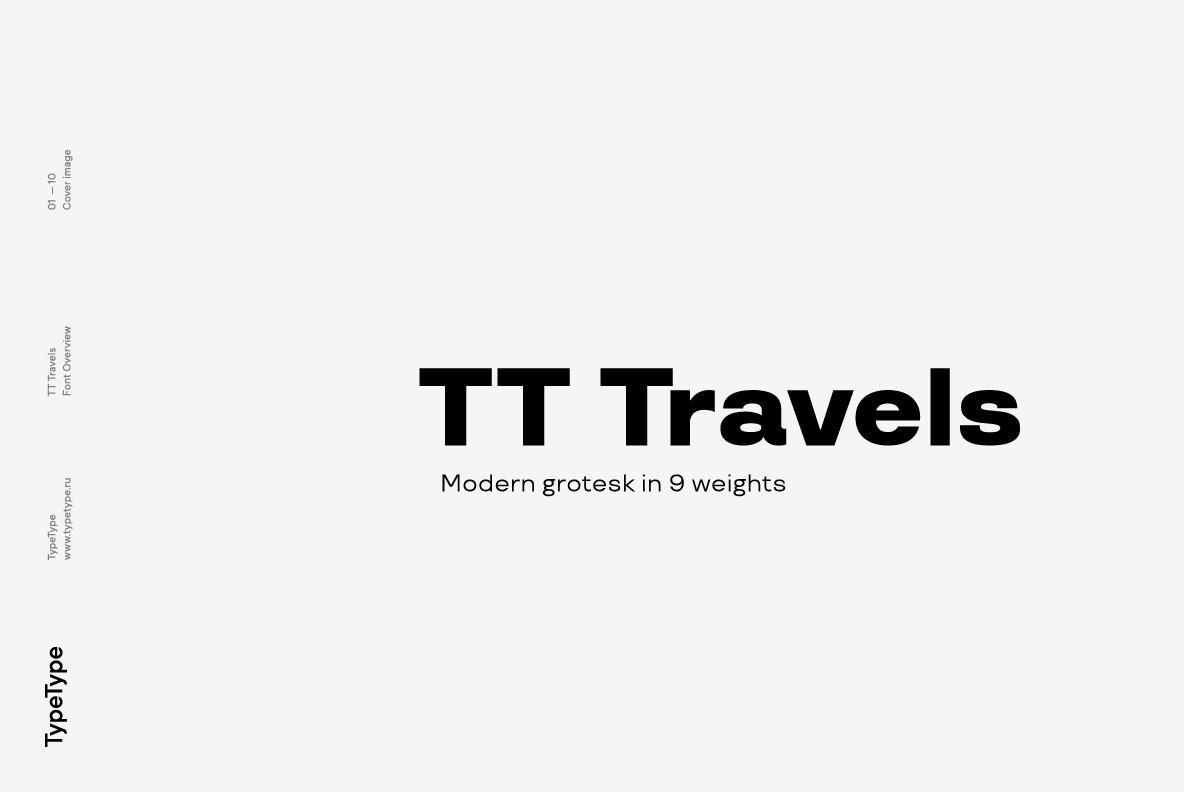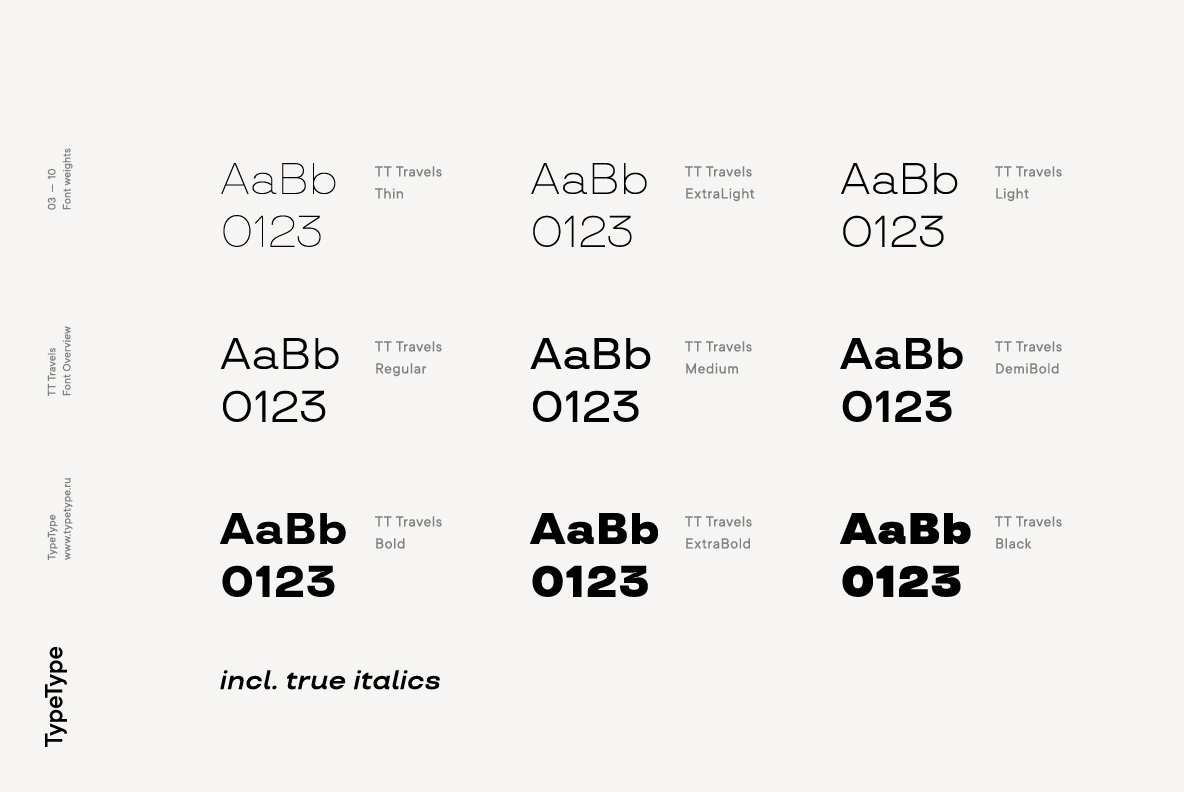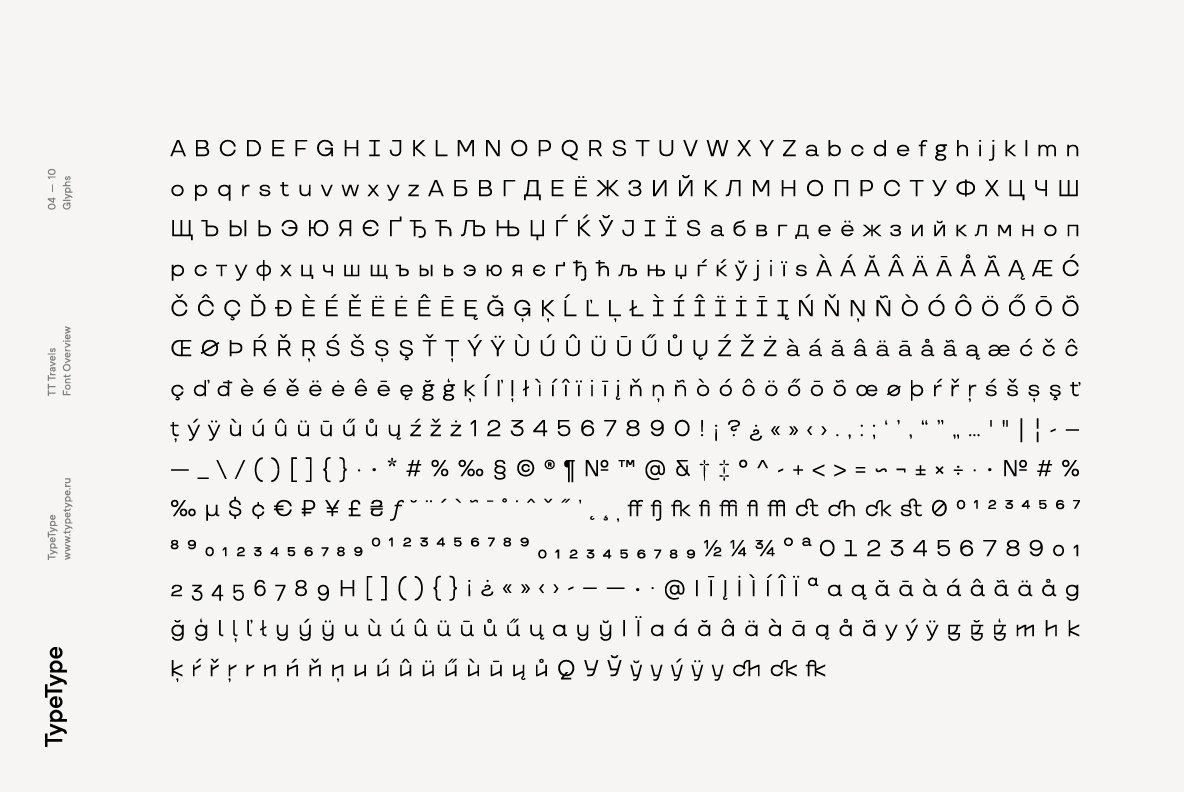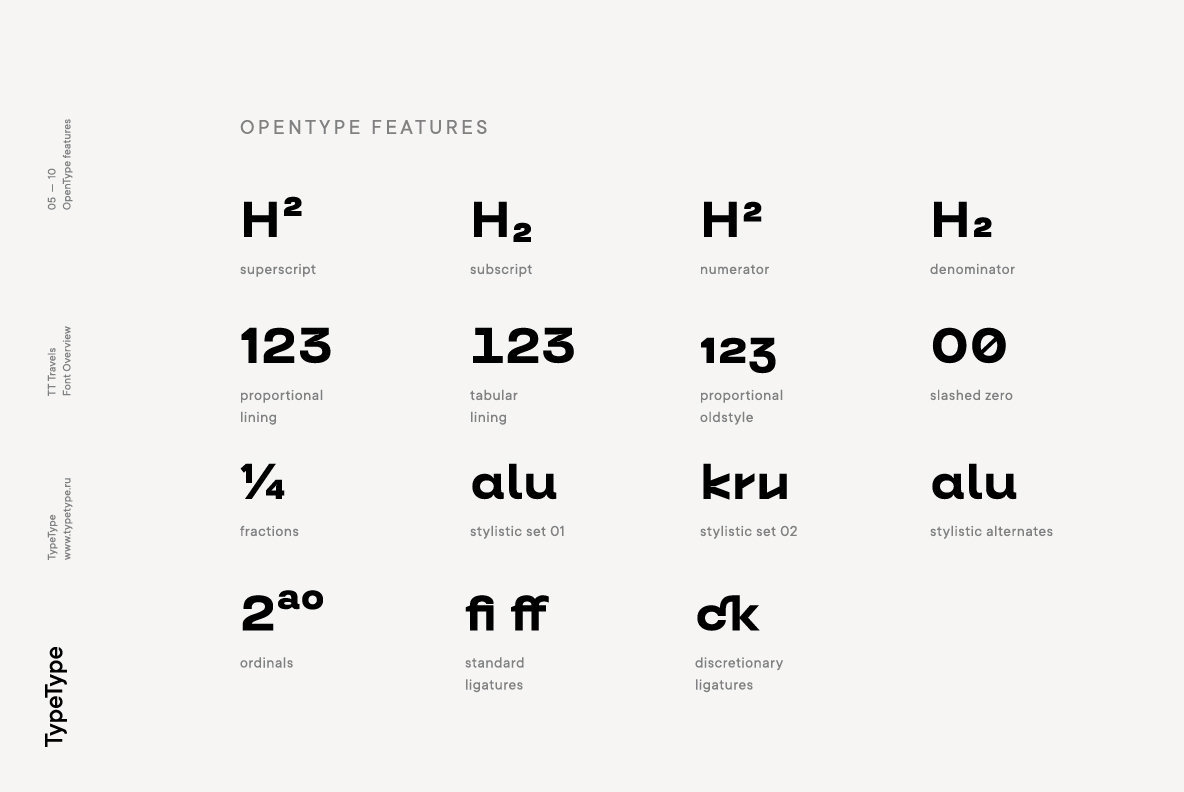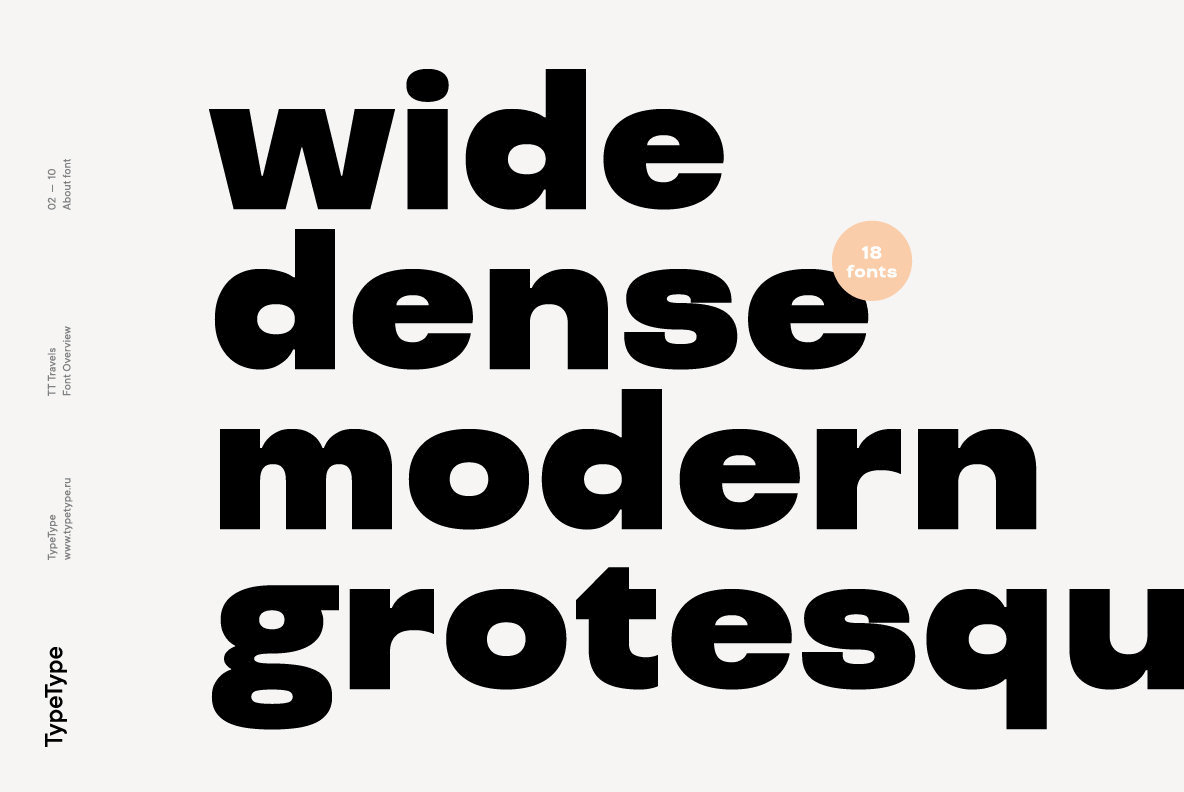
TT Travels Font
TT Travels incorporates two stylistic sets which add completely different characters to the type family. The first set ss01 (aka salt) makes the font more humanistic, thanks to the ductal and smooth design of the characters defining the style. And if you want to work with the futuristic version of TT Travels, we recommend that you enable the second set (ss02). In this set, most of the characters defining the style change to characters possessing experimental forms of graphemes.